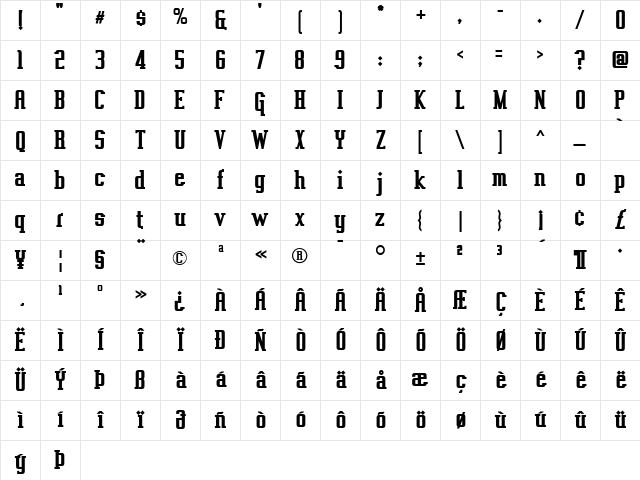
Vahika Bold
Vahika Family
Design Context for Vahika
Vahika is a composed and adaptable typeface that performs quietly and consistently across a wide range of design contexts. Its bold stroke weight gives it real presence on the page.